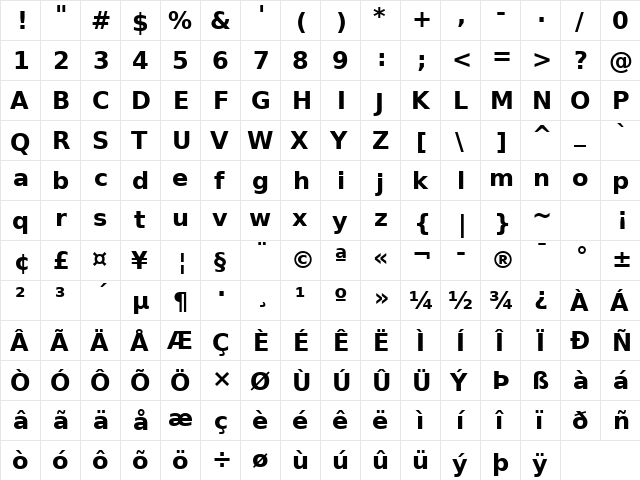
Bitstream Vera Sans Bold
| Foundry | Bitstream Inc. |
Design Context for Bitstream Vera Sans Typeface
Bitstream Vera Sans is a composed and adaptable typeface that performs quietly and consistently across a wide range of design contexts. The heavy weight commands attention and anchors typographic hierarchies.